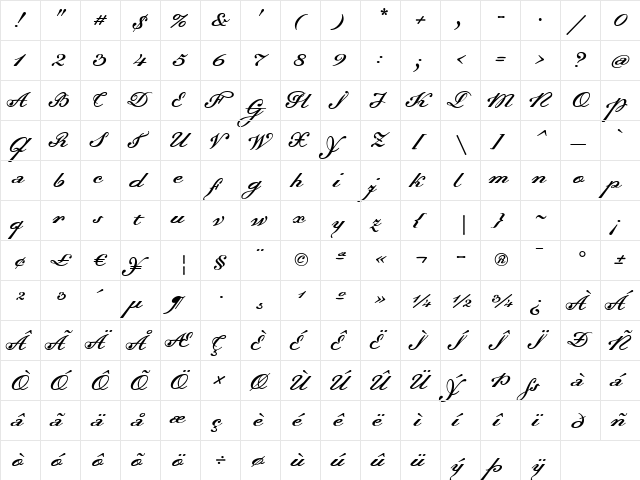
Dalliance Script Display Script Display
Design Context for Dalliance Script Display Typeface
Dalliance Script Display brings a calligraphic fluidity to the page — its connecting strokes and expressive curves give it an unmistakably human quality.
Font Pairing: Combine Dalliance Script Display with a simple geometric sans for maximum contrast — the tension between flowing curves and clean structure is a classic typographic pairing.
Pro Tip: Use Dalliance Script Display for short runs of text — names, titles, or taglines. Extended body copy in script faces tires the eye quickly.